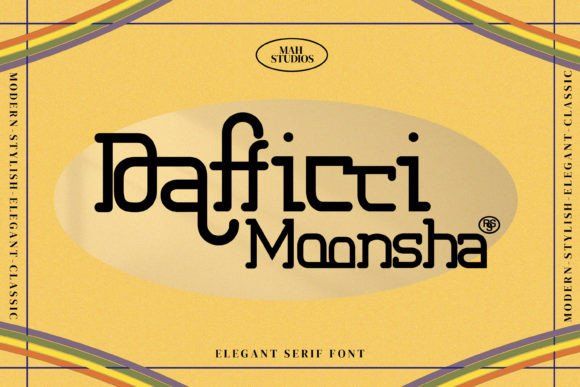
Step into the world of sophistication and elegance with Dafficci Moonsha, the display font that will transform your designs into captivating masterpieces. Crafted with meticulous attention to detail and a keen eye for aesthetics, this font exudes a timeless charm that will leave a lasting impression.
Indulge in a world where creativity knows no bounds. Dafficci Moonsha's graceful curves and striking glyphs dance together in perfect harmony, creating a visual symphony that commands attention. Whether you're a seasoned designer or just starting your creative journey, this font will elevate your projects to new heights.
With its PUA encoding, Dafficci Moonsha opens up a treasure trove of possibilities. Effortlessly access a vast array of glyphs and ligatures, unlocking hidden depths of expression and allowing you to unleash your boundless imagination. Experiment with letter combinations, create stunning logos, and craft eye-catching headlines that will captivate your audience.
Whether you're designing a website, crafting a poster, or creating social media graphics, Dafficci Moonsha is your perfect companion. Its versatility knows no limits, adapting seamlessly to any project and adding an instant touch of refinement. Let your imagination soar and watch as your designs come to life with a beauty that speaks volumes.
Embrace the power of Dafficci Moonsha and embark on a creative journey like never before. Experience the joy of effortless elegance and timeless allure as your designs take center stage. The possibilities are endless, and the results will leave you breathless. Add Dafficci Moonsha to your collection today and unlock a world of creative possibilities.